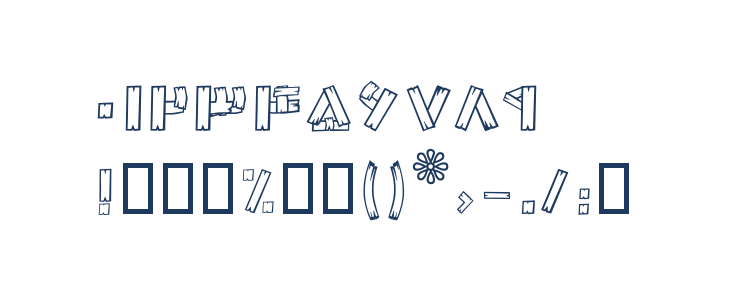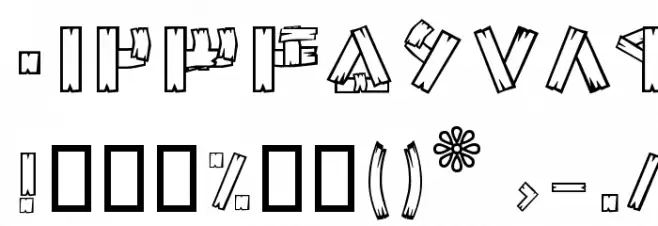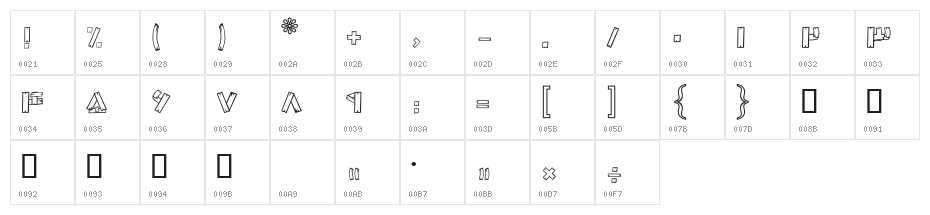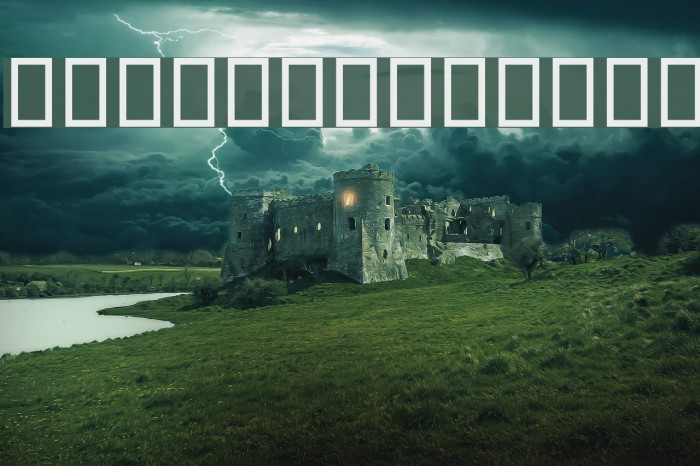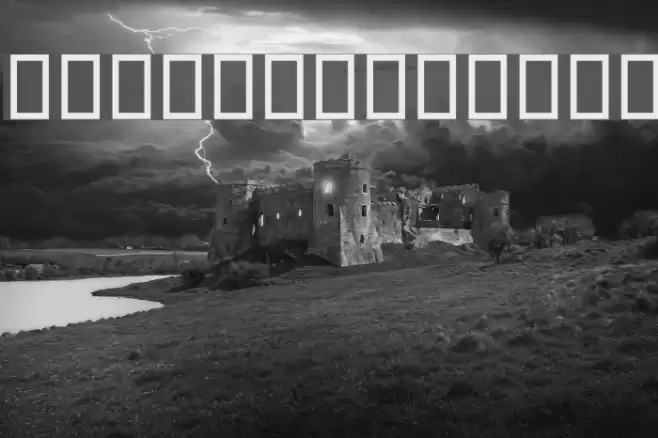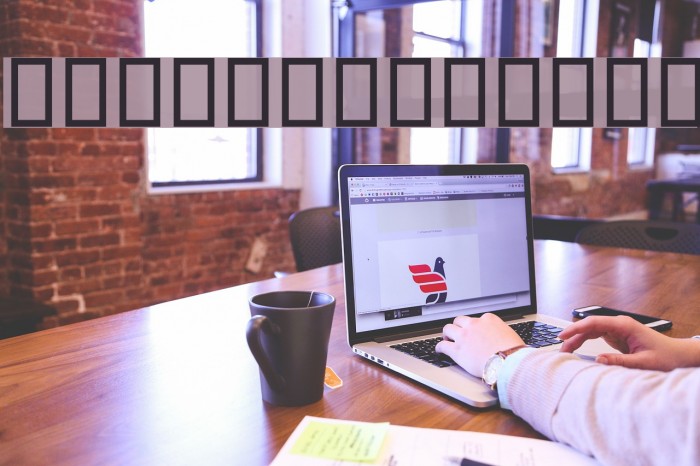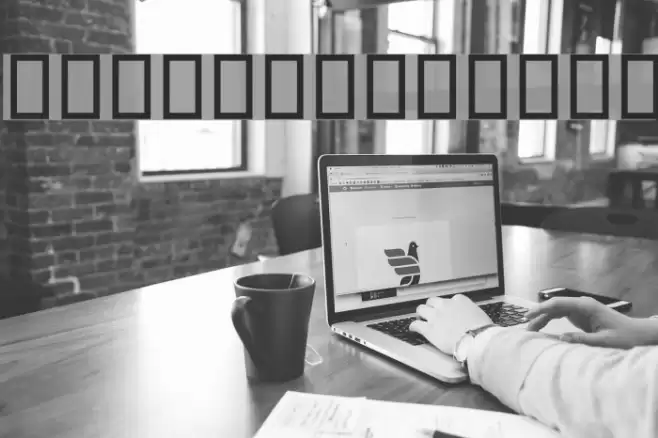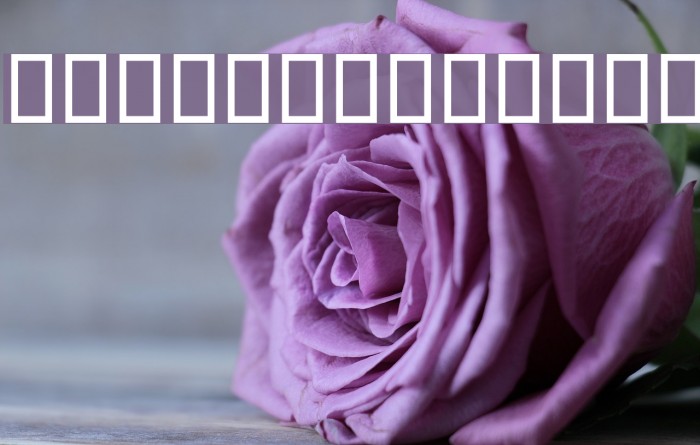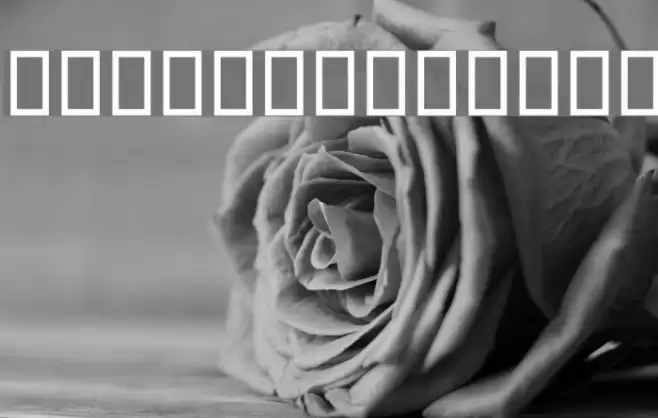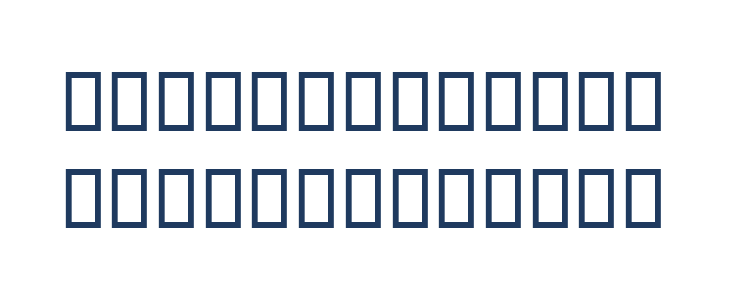
Wood I Font
Wood I Description
This font features a unique, playful design that mimics the texture and appearance of wood. Each character is crafted to resemble wooden planks, with intricate details that give the impression of a three-dimensional, carved surface. The letters are bold and slightly irregular, adding to the rustic and handcrafted feel. The font includes a full set of uppercase and lowercase letters, numbers, and a selection of special characters. Its distinct style makes it stand out, making it ideal for creative projects that require a touch of nature or a rustic theme.
| Overall Style | Rustic, Playful, Nature-inspired |
| Proposed Projects | Ideal for nature-themed designs, rustic wedding invitations, eco-friendly product packaging, and creative posters. |